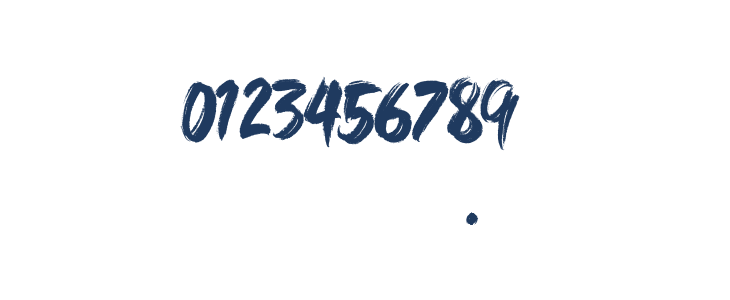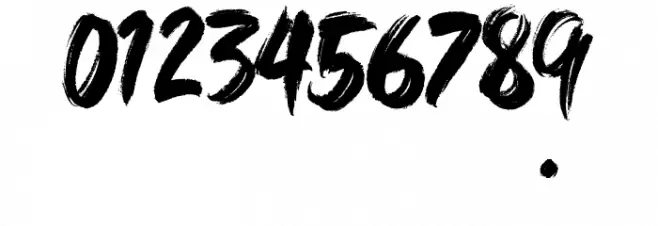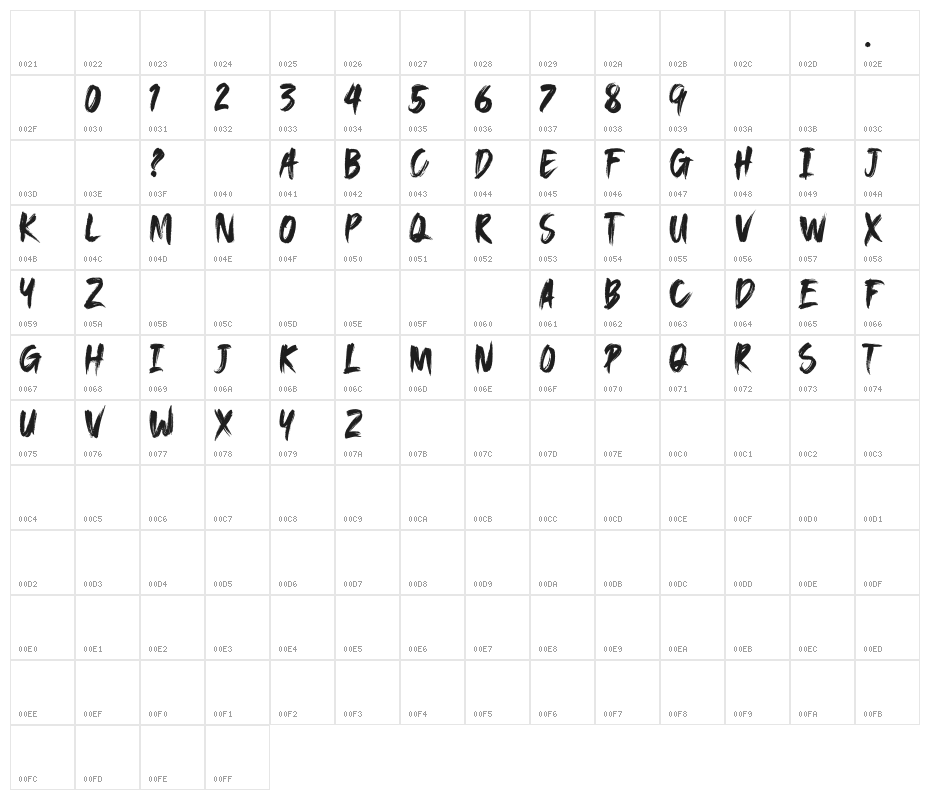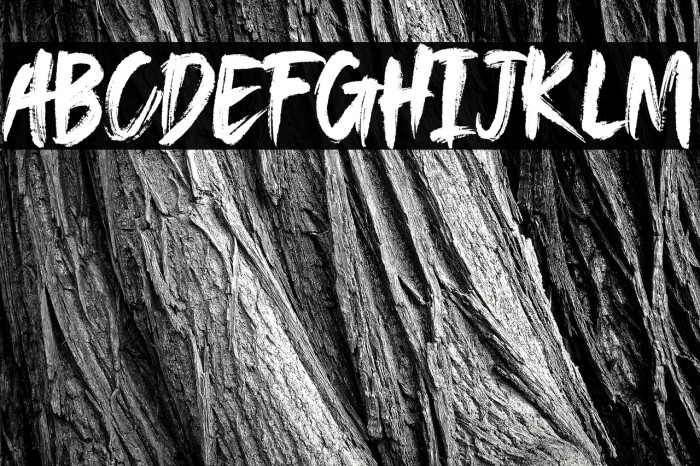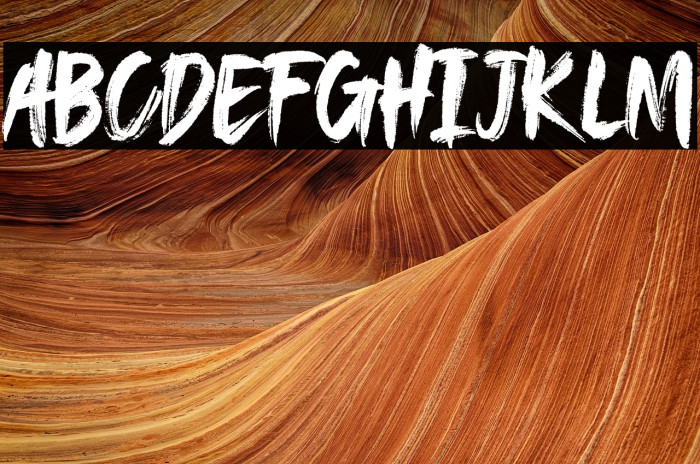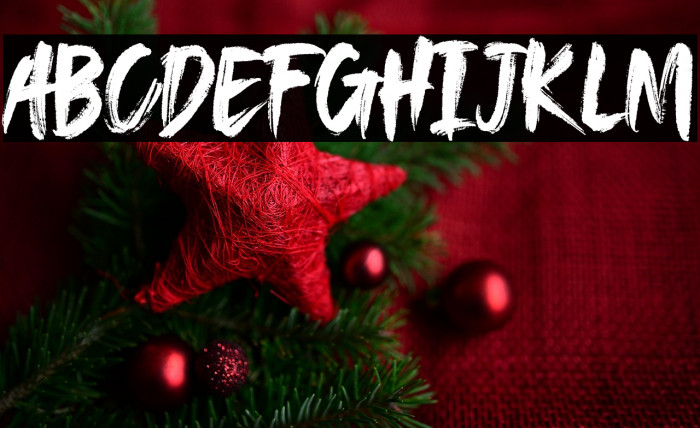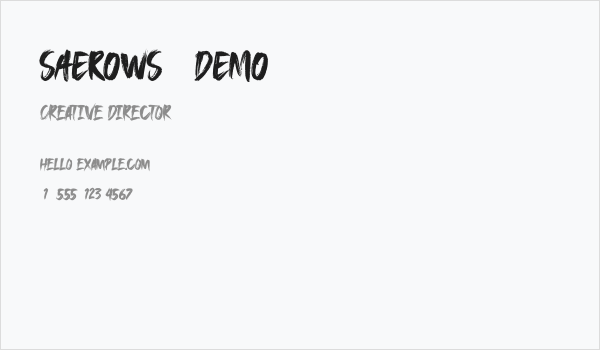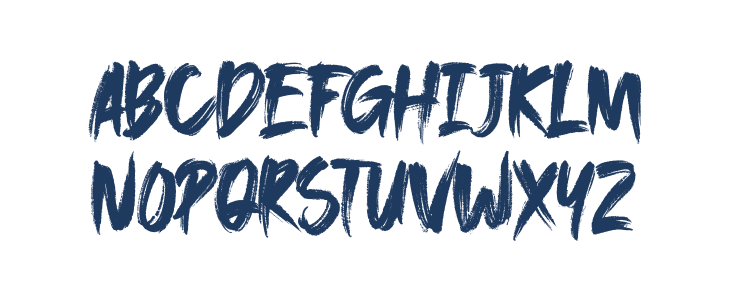
SAEROWS - DEMO Font
SAEROWS - DEMO Description
This font features a bold, expressive brush style that exudes energy and dynamism. The strokes are thick and textured, giving a hand-painted appearance that adds a personal touch to any design. The uppercase and lowercase letters maintain a consistent style, with a slightly irregular form that enhances its artistic flair. Numbers and punctuation follow the same bold and textured pattern, ensuring a cohesive look across all characters. This font is ideal for projects that require a strong visual impact and a creative, handcrafted feel.
| Proposed Projects | Ideal for posters, branding, album covers, and any creative project needing a bold, artistic touch. |